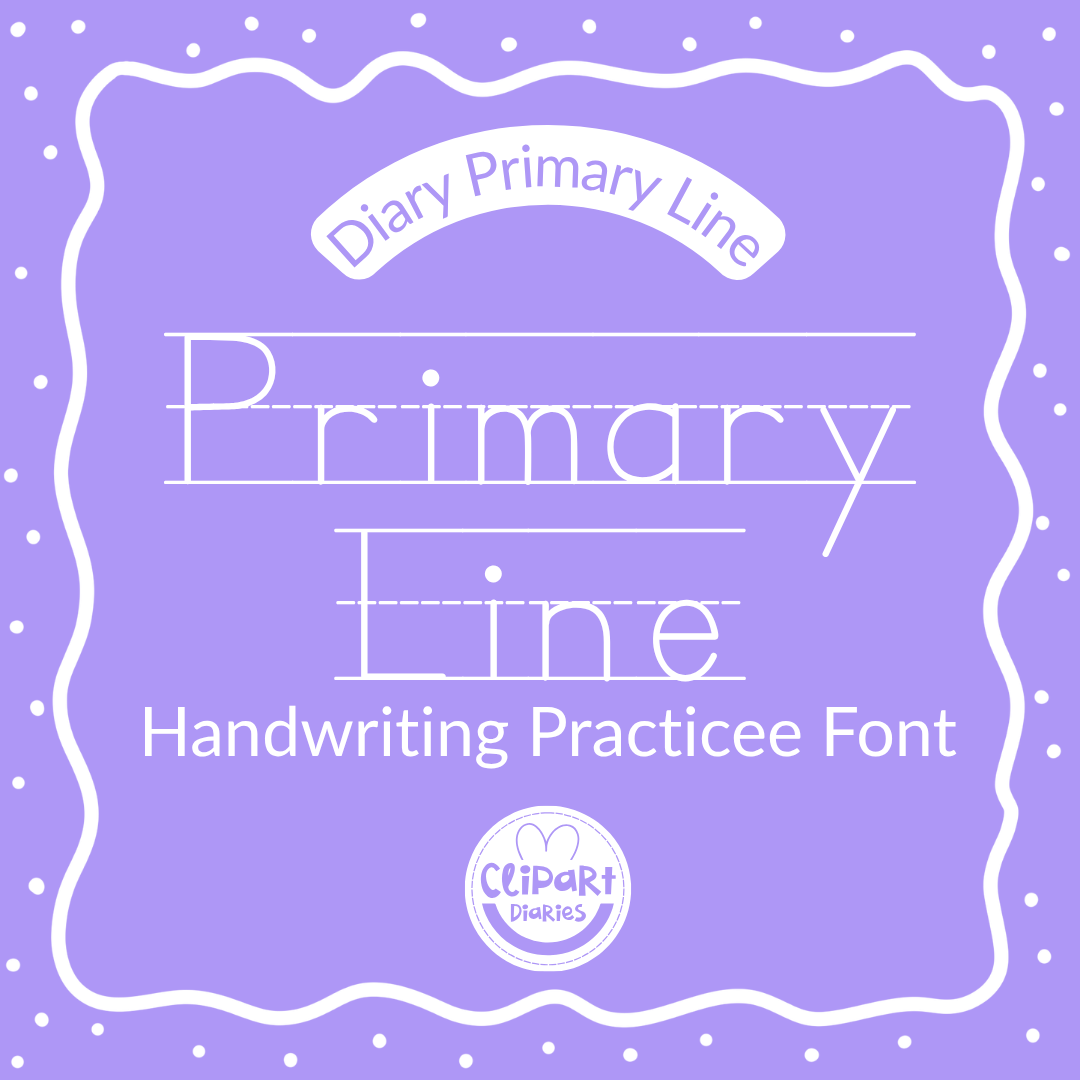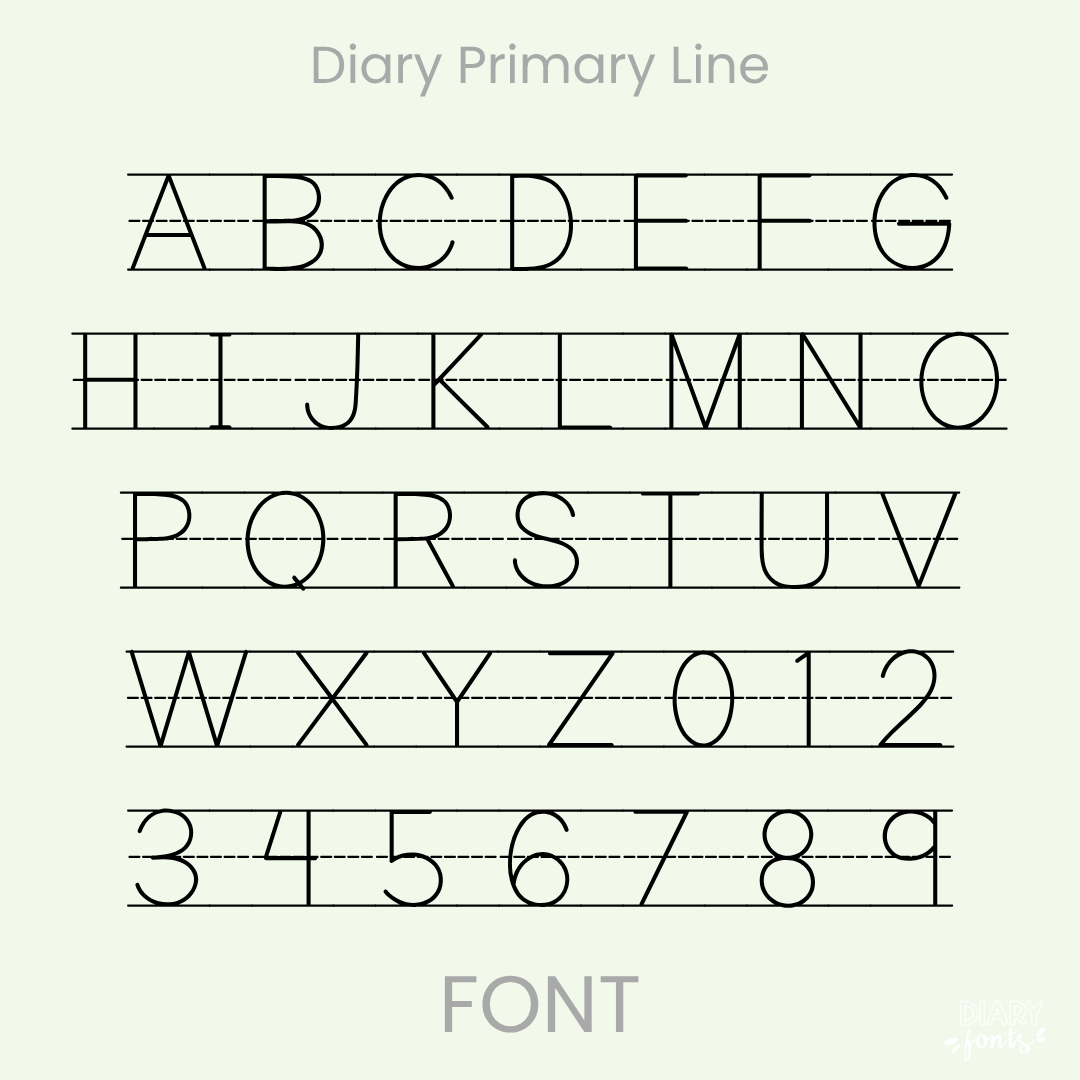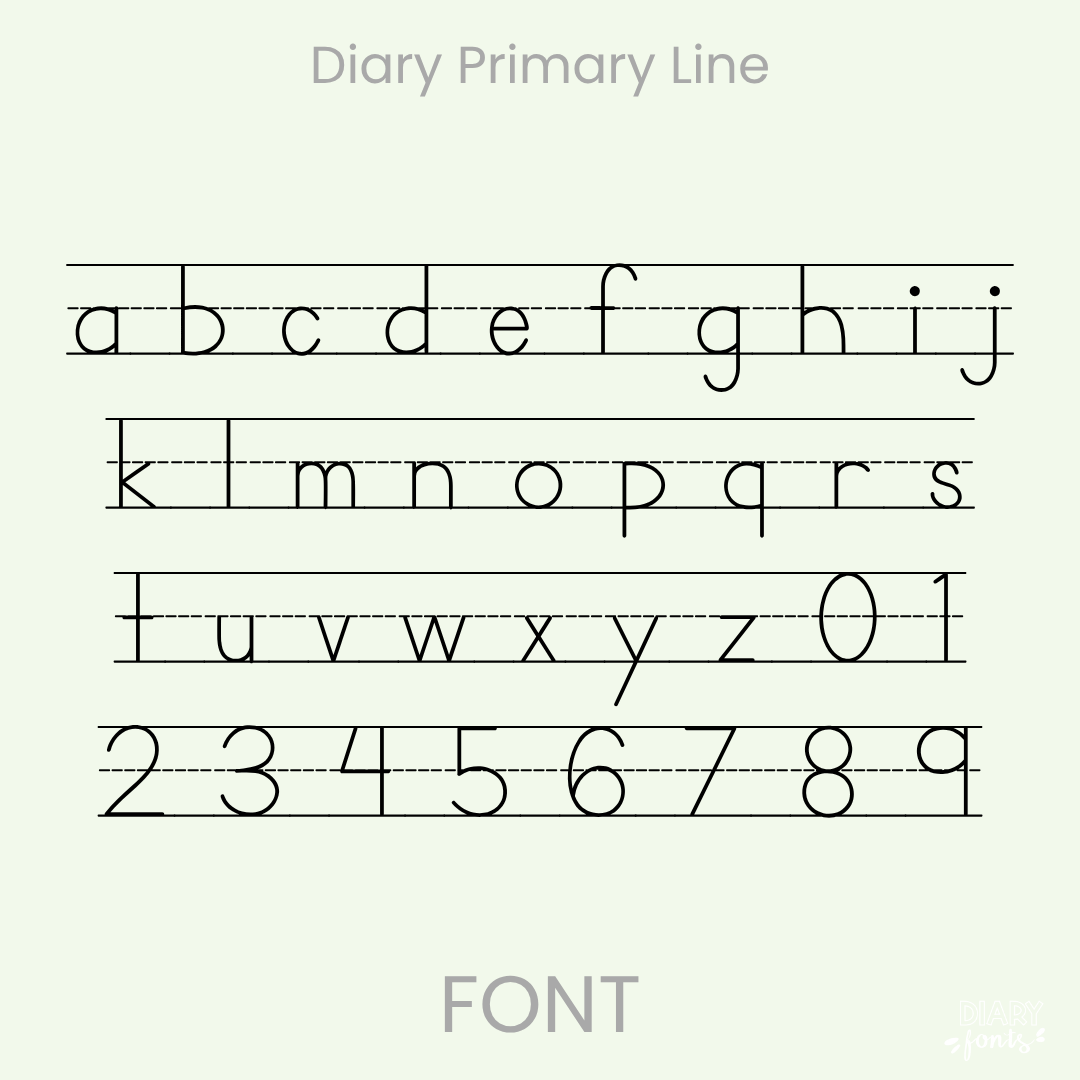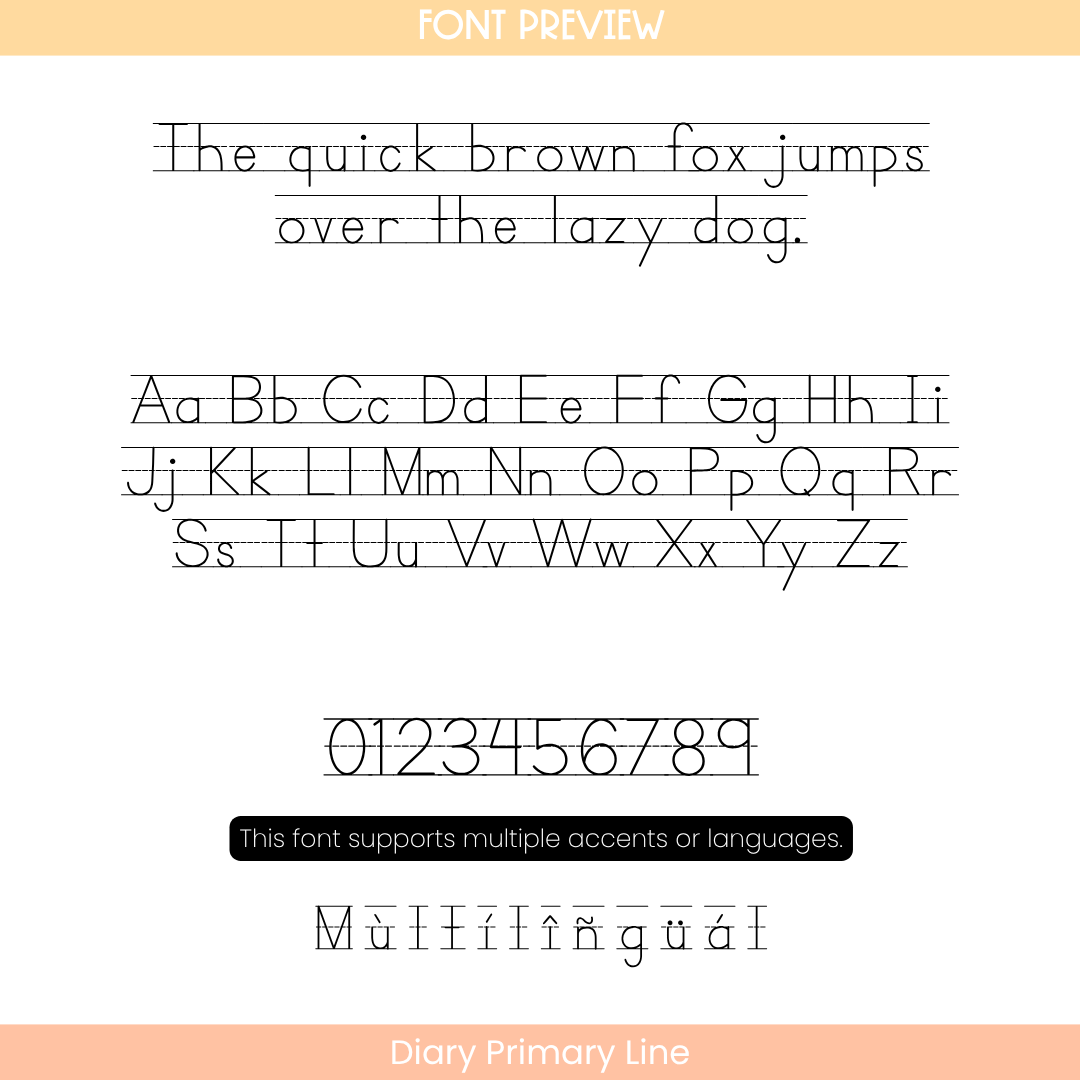
Diary Primary Line – Handwriting Practice Font with Lines
The Diary Primary Line is a traditional handwritten practice font embedded with horizontal guidelines, explicitly designed to assist early learners with letter formation, tracking, and sizing.
Diary Primary Line provides an essential educational layout by combining a standard elementary print style with built-in notebook lines. Each character is structured with precise top, dashed-middle, and baseline constraints to show students exactly where lines sit and how to accurately proportion their letters. The perfectly upright, clear handwriting format models standard penmanship without any decorative distractions, offering maximum visual guidance for children practicing their motor skills.
This font is a practical tool for creating guided handwriting worksheets, spelling tracing pages, name-writing templates, and introductory literacy exercises. The package features a comprehensive character set that includes uppercase and lowercase print letters, clean numbers, and accent marks for multilingual support. It installs quickly and operates smoothly on desktop applications like MS Office, Canva, and Adobe Apps, as well as on iPad software such as GoodNotes and Procreate. It serves as a foundational resource for personal classroom activities or commercial teacher material development.